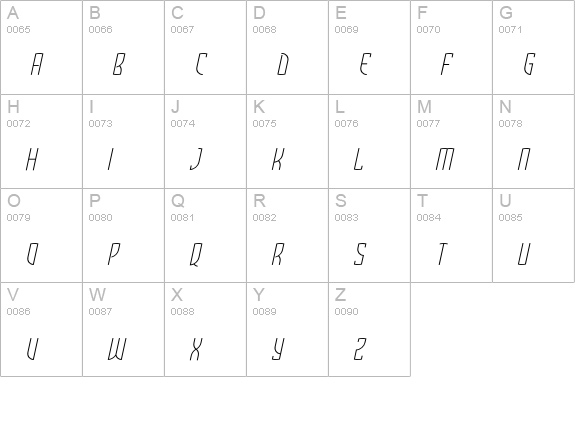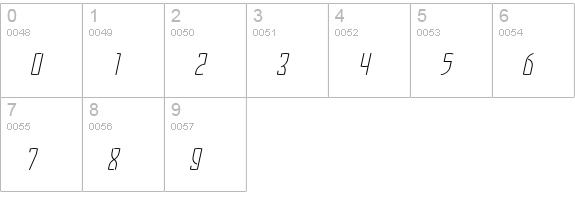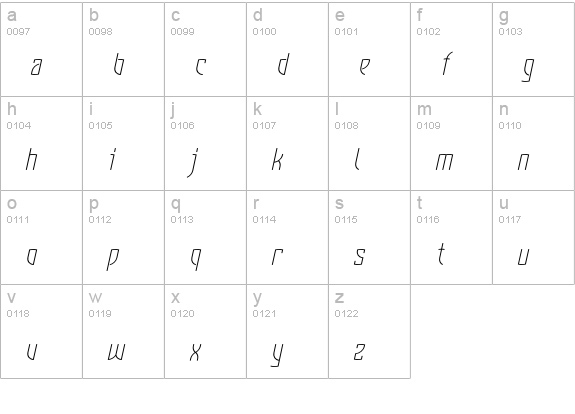
Komunique-LightItalic Font Details
Komunique-LightItalic font is a sleek and elegant typeface that exudes sophistication and modernity. Its stylish slanted design adds a touch of uniqueness to any project, making it perfect for both digital and print applications. The smooth curves and delicate strokes of this font create a sense of fluidity and grace, making it ideal for conveying a sense of refinement and elegance. What sets Komunique-LightItalic font apart is not only its aesthetic appeal but also its versatility. Whether used for headlines, body text, or branding purposes, this font is sure to make a statement and capture the attention of your audience. Its clean and crisp appearance ensures readability while maintaining a sense of style and sophistication. Best of all, Komunique-LightItalic font is available for free download at FontsMarket.com. This means you can easily access this high-quality typeface without any cost, making it a valuable addition to your font library. So why wait? Elevate your designs with the Komunique-LightItalic font today and make a lasting impression with its timeless elegance.